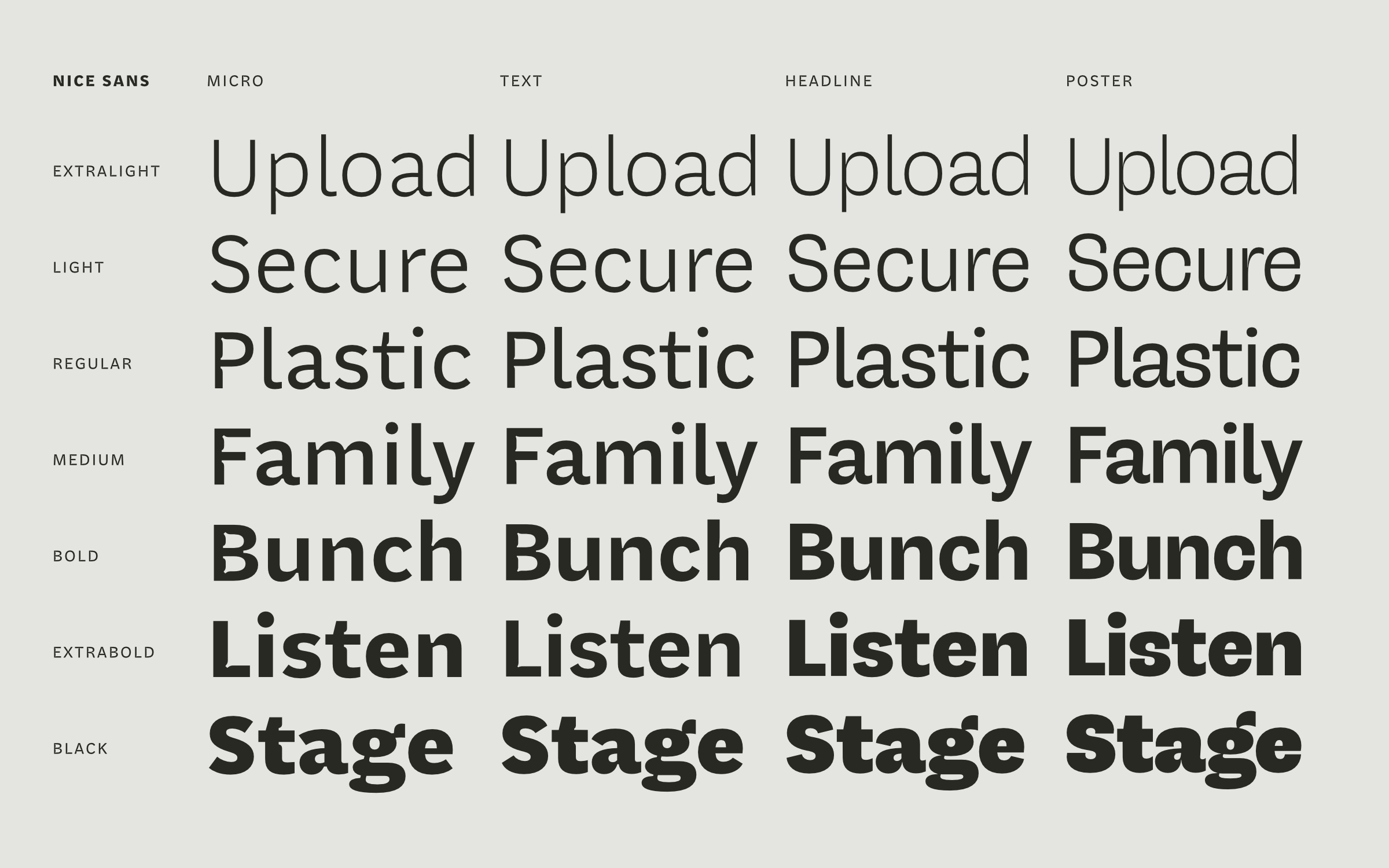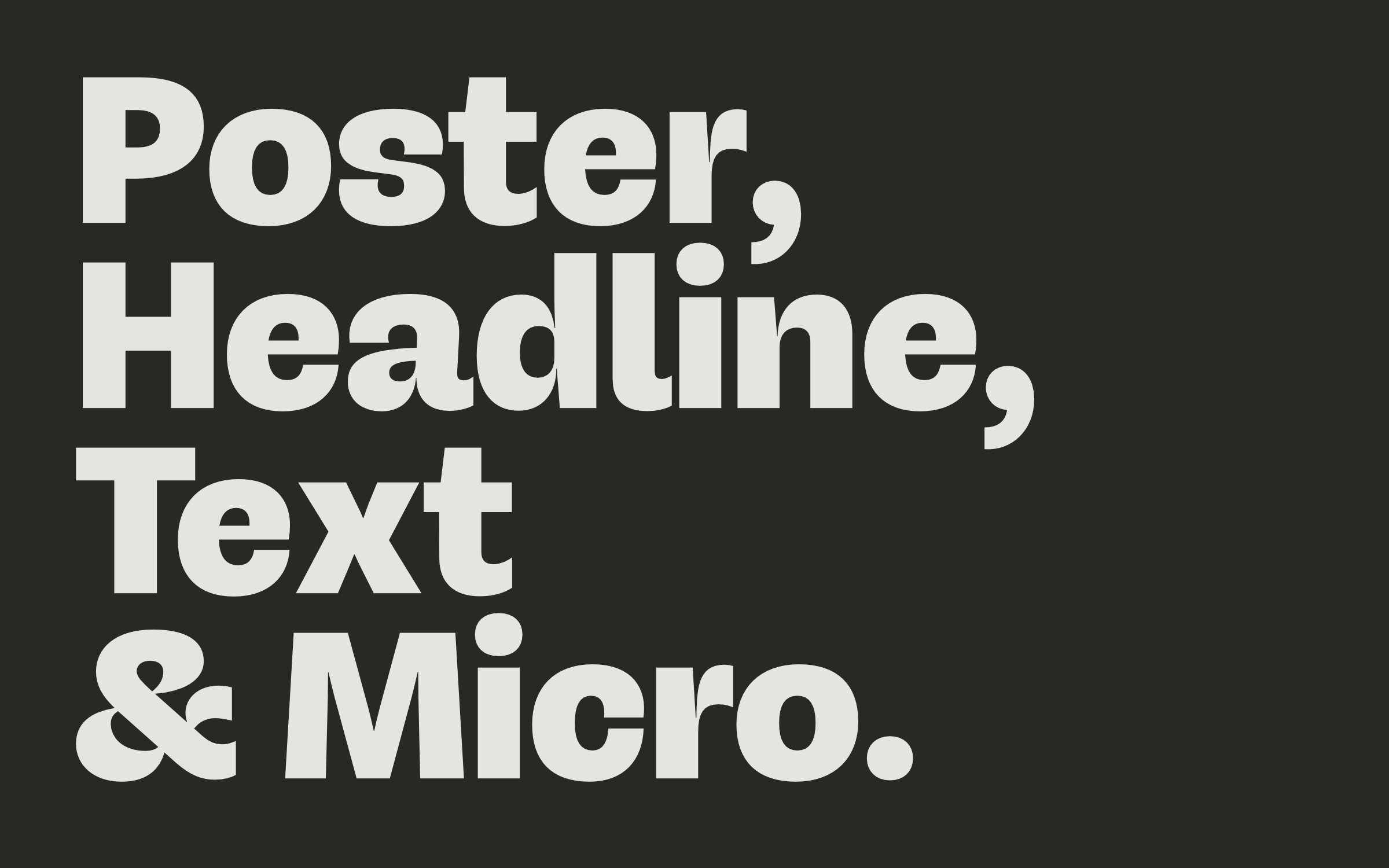
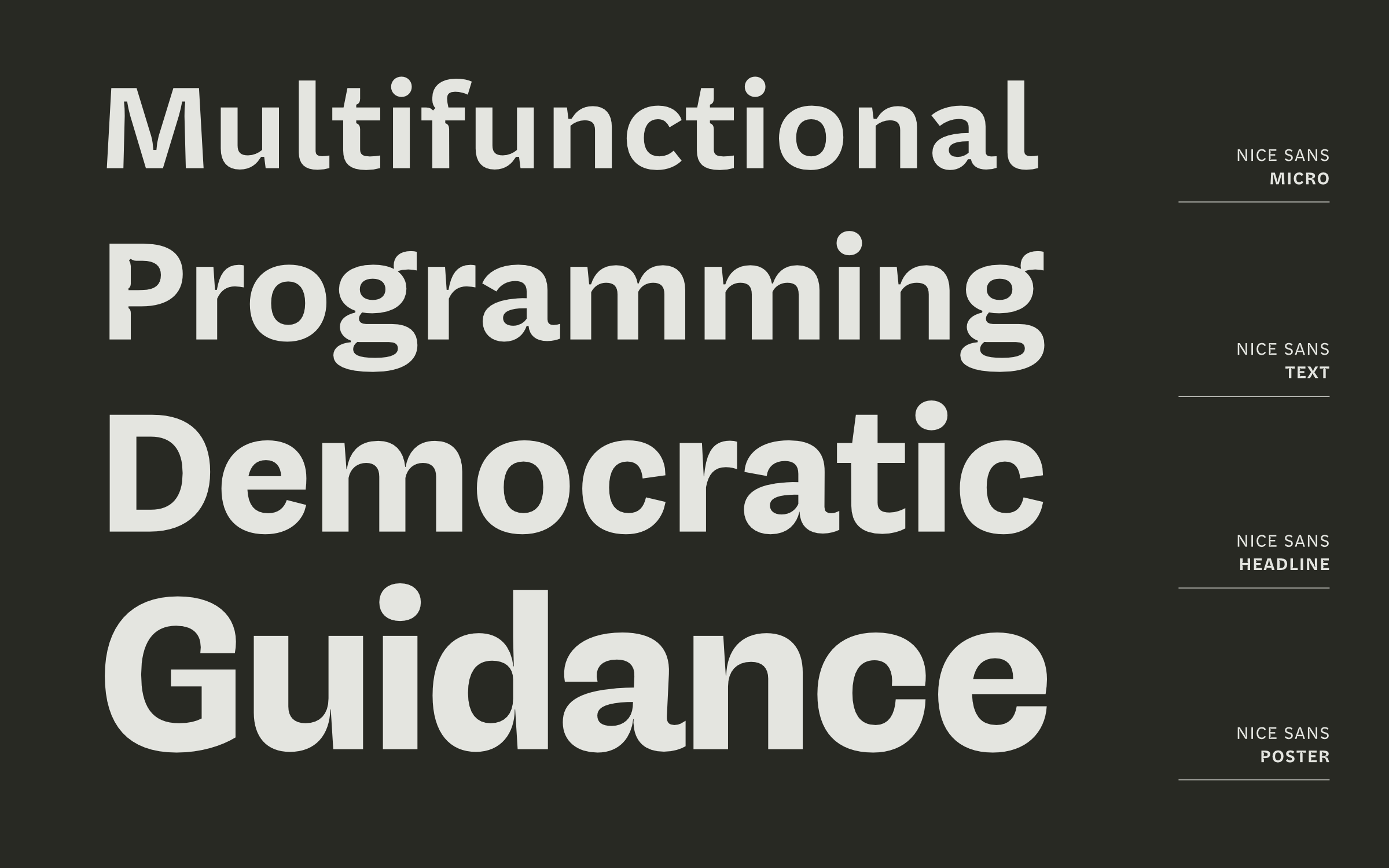
As we look towards our little Summer break, we wanted to share a short round-up of sneak peeks, some thoughts about the recent Berlin Letters Festival, remind you about the latest member to join the ever-growing Pangea Collection and there’s a very special use case featuring McQueen Grotesk. So, take a break and read on. |
| | Nice Sans coming soonWe are super excited to share a little sneak peek of Nice Sans, which will complement Jan Fromm’s serif superfamily Nice, very erm, nicely indeed (see what we did there ;) Jan is hard at work tinkering away on the design and we are so excited by how it’s coming along. This ‘Grotesk’ iteration of Nice will, like the Serif, be available in four optical sizes: Poster, Headline, Text and Micro and we plan to launch it in early 2025. In the meantime, for those eager beavers who want to take it for a test drive, you can get your hands on some very early (!) Beta fonts by getting in touch with us. The award-winning original Nice, which won the Communication Arts Award of Excellence in 2023, is definitely ready and still popular. If you can’t wait for the arrival of the sans counterpart, have some fun with the older family member for the time being. | |
| | Released four weeks ago: Pangea Condensed (+SemiCondensed +XCondensed) | |
| | Have you met Pangea Condensed yet?Last month, we shared that Pangea by Christoph Koeberlin just got even bigger and better, with the introduction of three brand new widths: SemiCondensed, Condensed and XCondensed. With the addition of Pangea Condensed, the Pangea Collection now offers you an even richer type treasure trove with 80 fonts and 542 languages, making it an exceptionally powerful tool. It is also arguably one of the most comprehensive contemporary geometric sans serifs out there right now. | |
| | McQueen Grotesk in use for the fictitious Schlossatelier Monaise (along with the custom typeface Monaise) | |
| | McQueen Grotesk helps dreams come trueFor Type Designer and Designer Luca Marie Julien, the opportunity to create her own project and concept arose during her Bachelor’s semester at Trier University of Applied Sciences. She came up with the idea of an imaginary artists residency and as part of the project she had to design the brief and a series of marketing materials. She chose Monaise Castle, a small chateau on the Moselle, as the hub of her fictional project and came up with “Schlossatelier Monaise” – a scholarship that would be awarded to young artists and creatives. As part of the project, she created her own display typeface with three styles. To complement this, she used McQueen Grotesk by Loris Olivier, Noheul Lee, Katja Schimmel and Olli Meier as the body font. As she says, “I chose McQueen Grotesk from Fontwerk as the body text font because it looks friendly and inviting, is easy to read and offers an extensive character set.” Our generous and very student-friendly licensing policy may have also played a role in her choice, as all students can download each family for a flat rate of €50 (plus VAT). | |
In our last newsletter, we announced Ivo’s appearance at the Berlin Letters Festival. Berlin Letters is a type gathering with a difference. Covering all aspects of all things type-related – from type design to sign painting, from calligraphy to all the behind the scenes of the type business and of course, lettering – it was the second edition of this event and wow… Our heads are still fizzing and buzzing! Over the course of three days, 23 speakers from across the industry let off creative fireworks in the most unique of locations (a former crematorium). We are still processing the experience and soaking up all the conversations and inspiration and would like to take this opportunity to thank the organizers Ulrike Rausch, Chris Campe, Nils Töpfer, Claudia Guminski and all the other great people who came together to make this event a reality. Berlin Letters is a gift for the Berlin and European design scene. We really hope that the festival lasts for many years and if you missed it this year, make sure you don’t miss it in the future! (© Photo: Norman Posselt) ↗ |